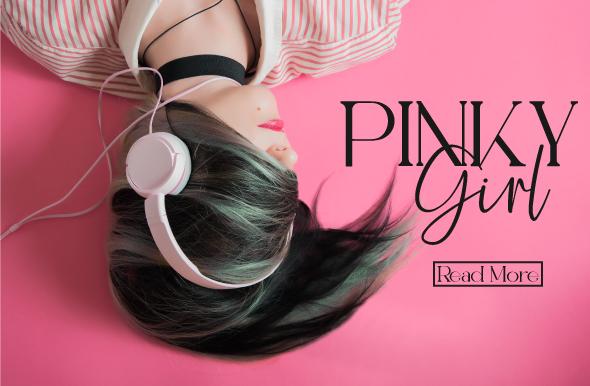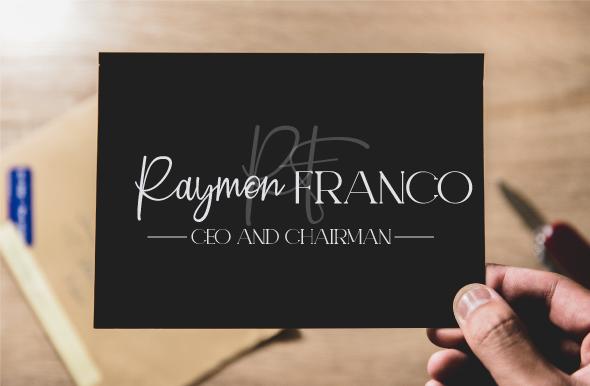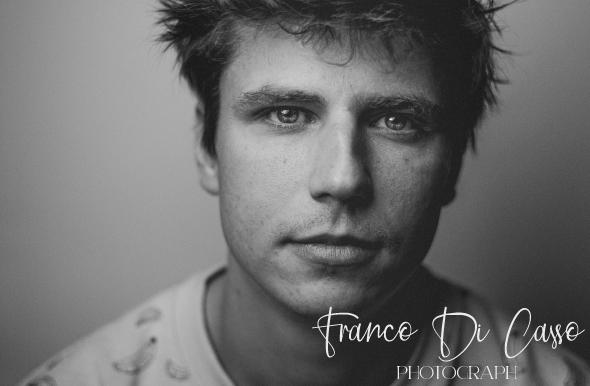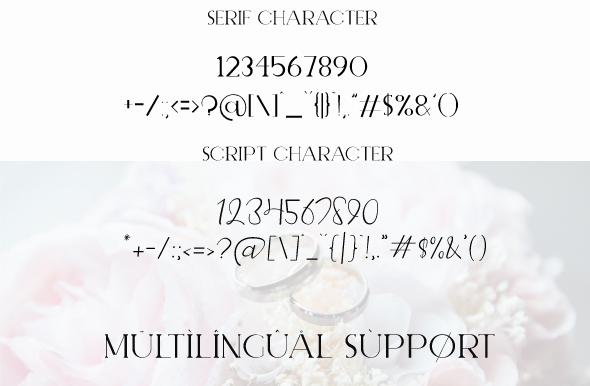
About Elegant Fashion Duo Font
HELLO GUYS, Say Hello to ‘ ELEGANT FASHION DUO.’ The perfect pairs between serif and script font. which is perfect for wedding invitations, advertisements, banners, books, business cards, signatures, and others who want a natural handwritten font type. What’s Included ? ELEGANT SERIF FONT ( TTF, OTF,WOFF ) FASHION SCRIPT FONT ( TTF, OTF,WOFF ) The Features of this fonts is : Standart ligatures Morethan 71 Ligature Multilingual Support Work on Mac or Windows Programs that support in this font is a Photo Shop, Adobe Illustrator, Adobe Indesign, Corel Draw and Microsoft Office.To enable the OpenType Stylistic alternates, you need a program that supports OpenType features such as Adobe Illustrator CS, Adobe Indesign & CorelDraw X6-X7